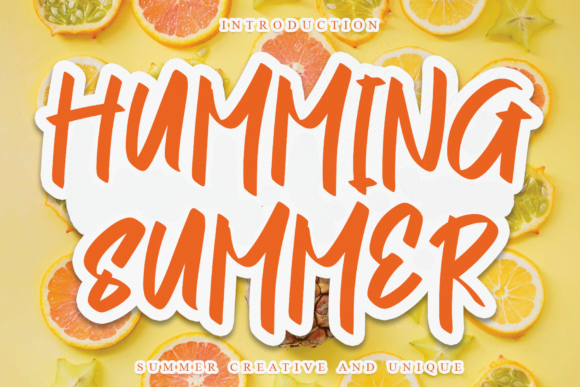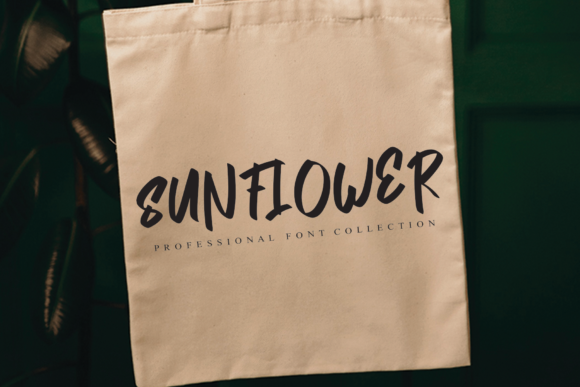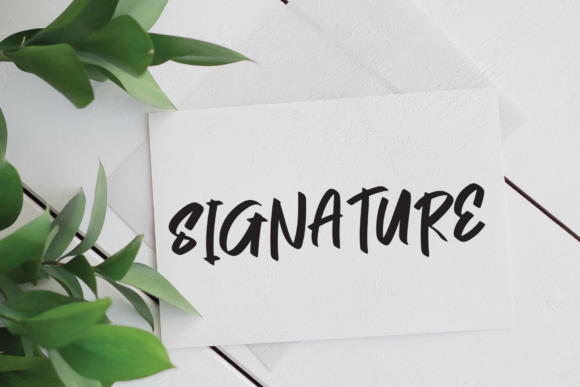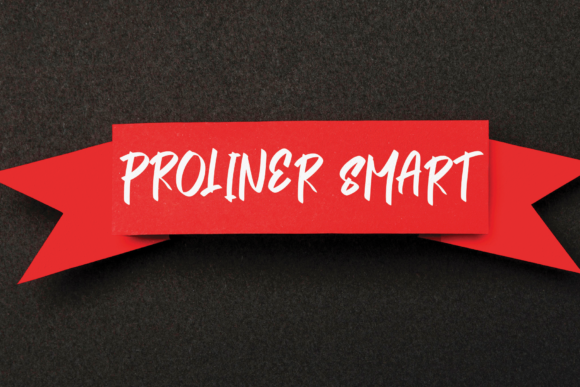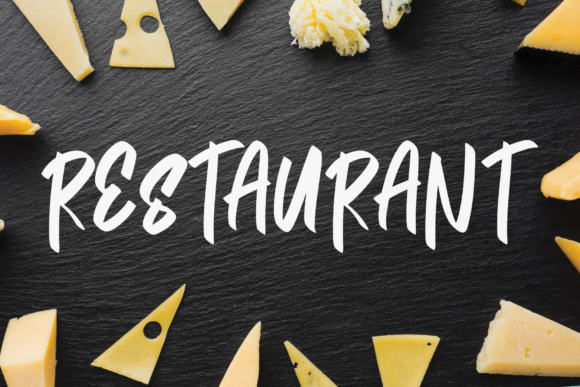
Humming Summer Font
About Humming Summer Font
Humming Summer is a simple, relaxed and casual handwritten font. This adaptable font will look great on a variety of design ideas. It will add a fun and friendly touch to each of your projects!